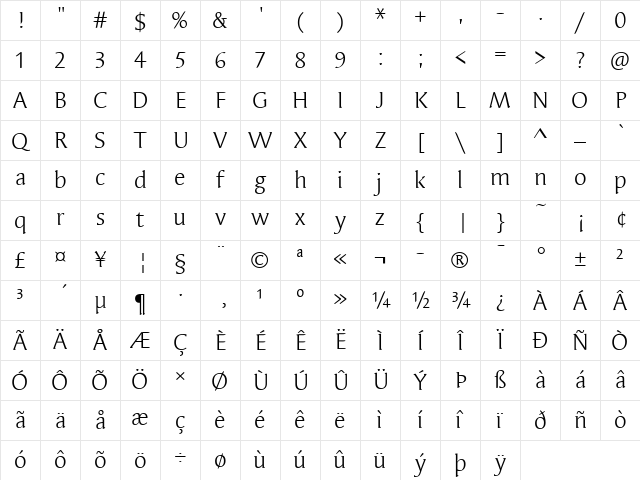
Syndor ITC Book Regular
Syndor ITC Book Family
Syndor ITC Book Regular
Complete Syndor ITC Book Regular glyph index. Displaying only characters natively supported by Syndor ITC Book Regular font.
Design Context for Syndor ITC Book
Syndor ITC Book is a composed and adaptable typeface that performs quietly and consistently across a wide range of design contexts.